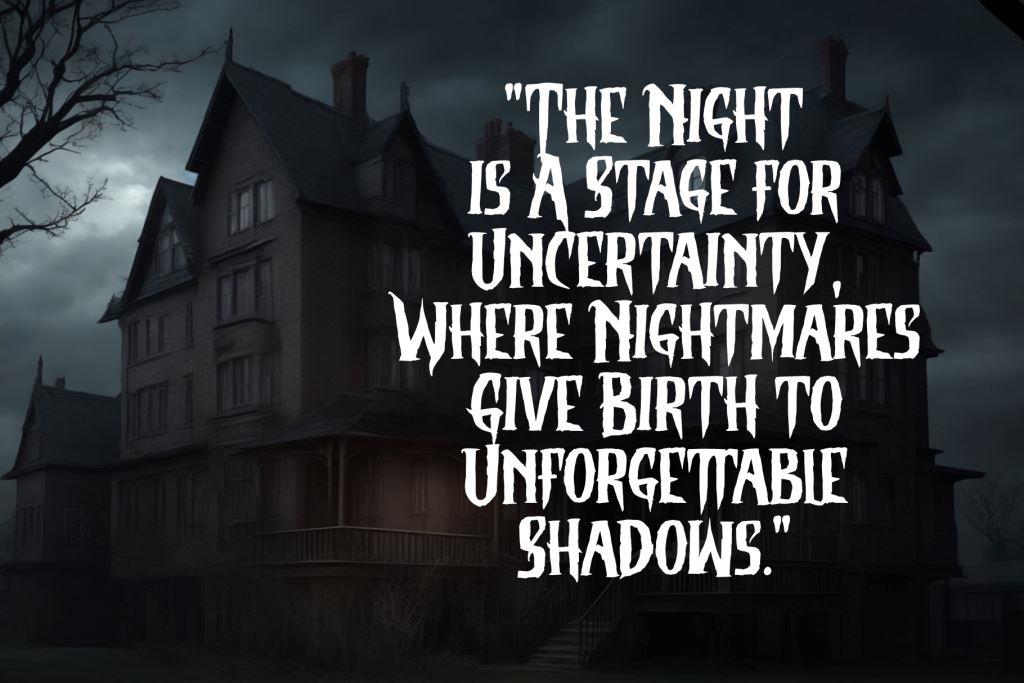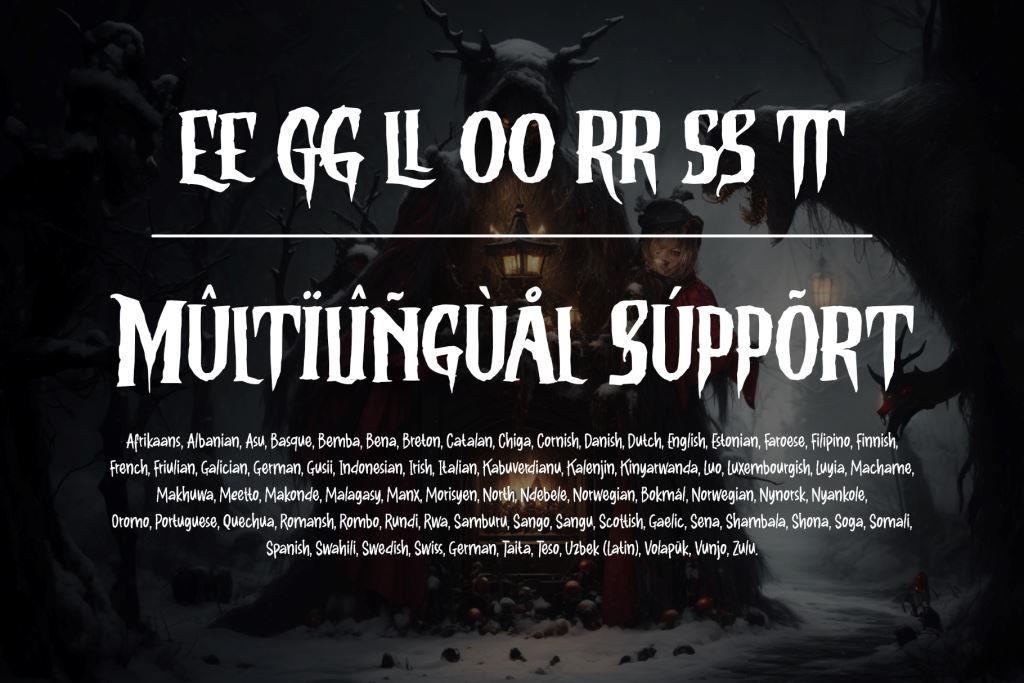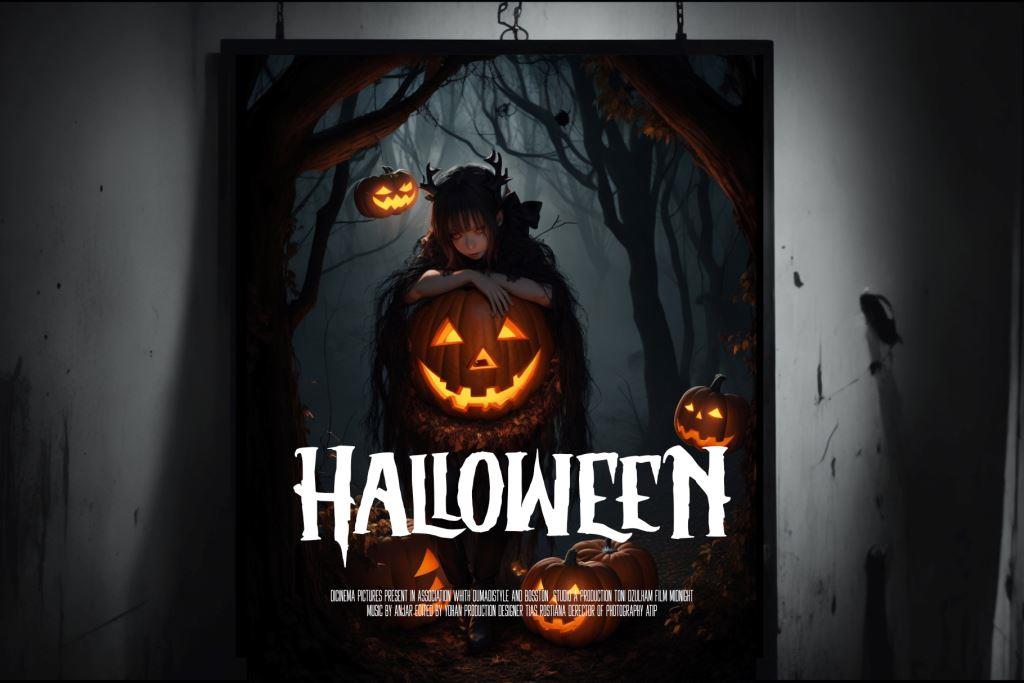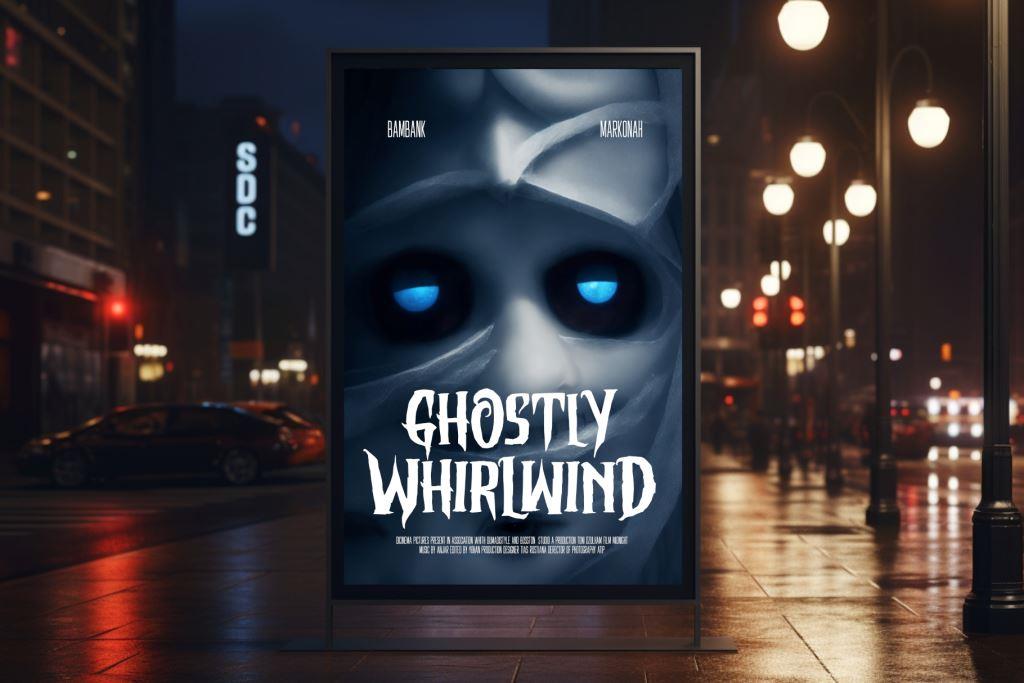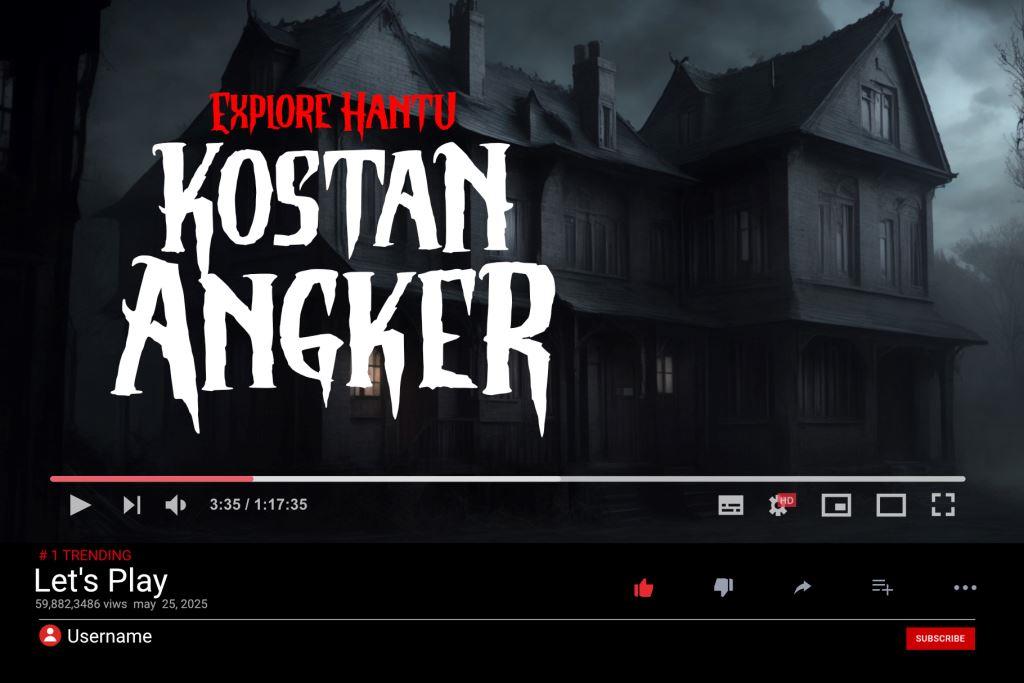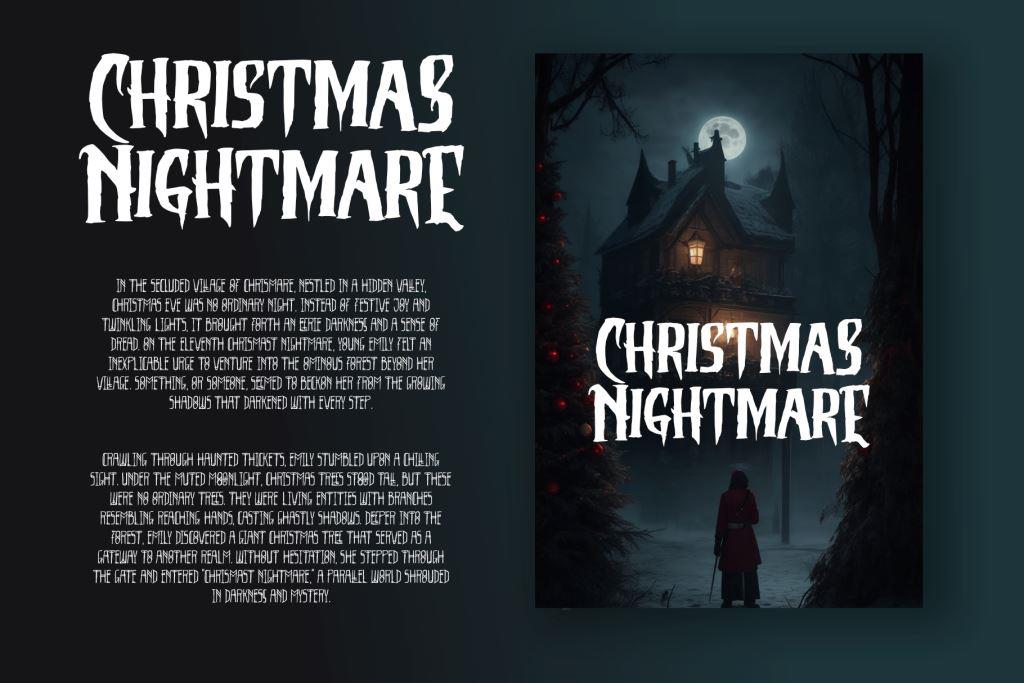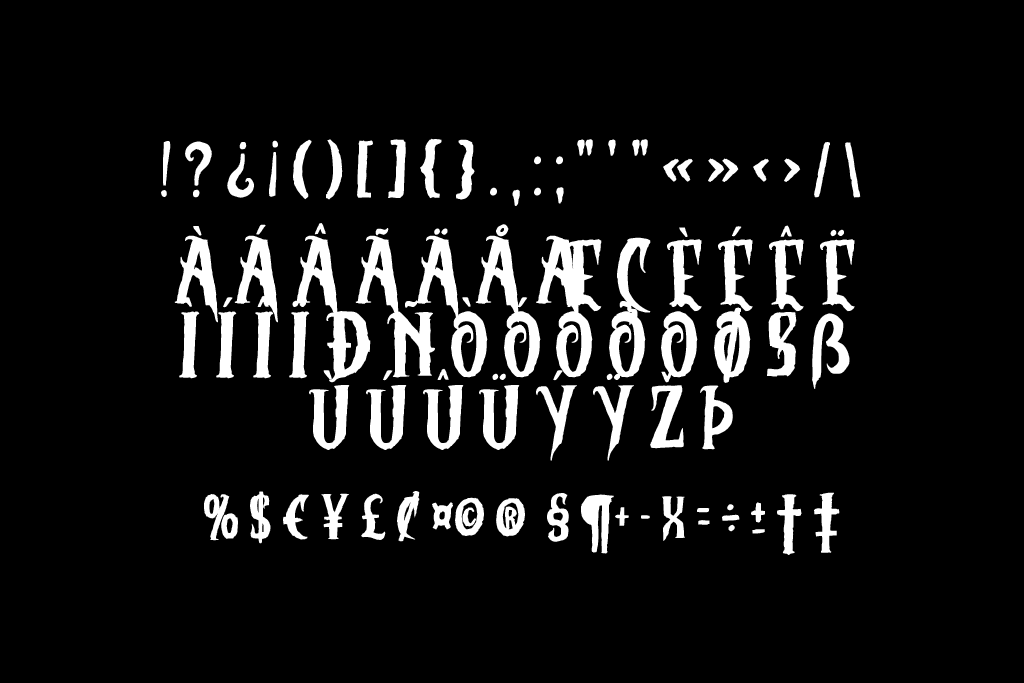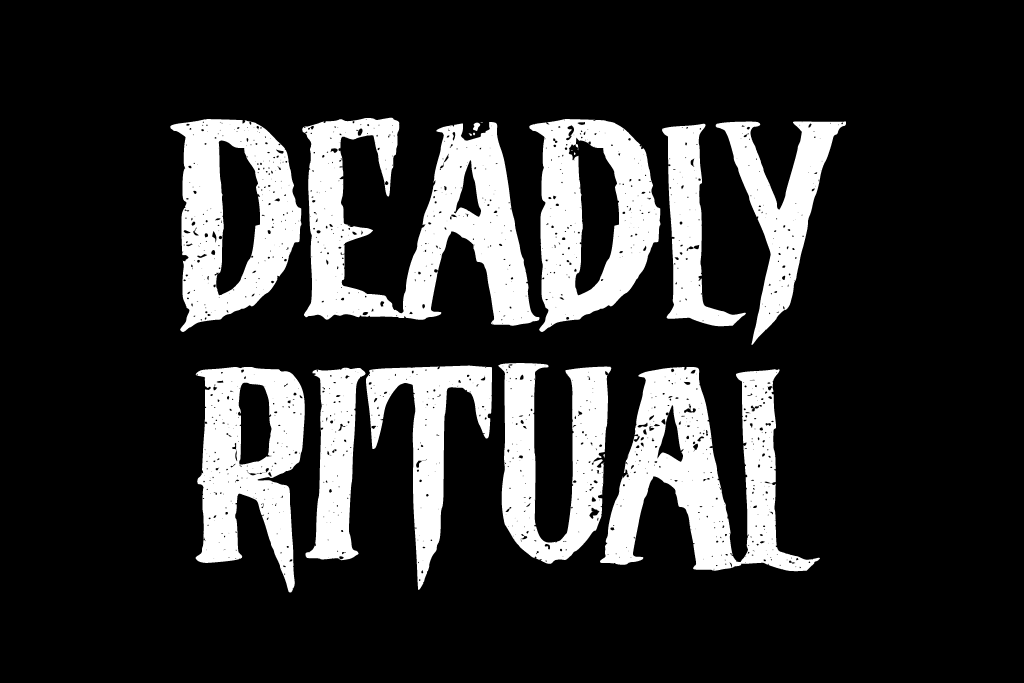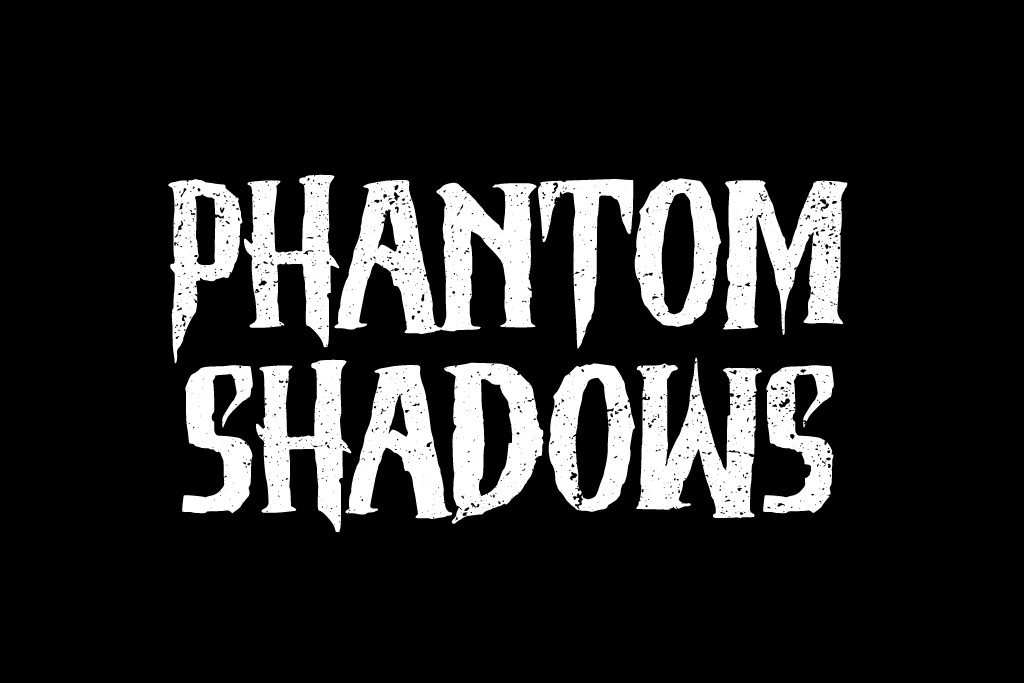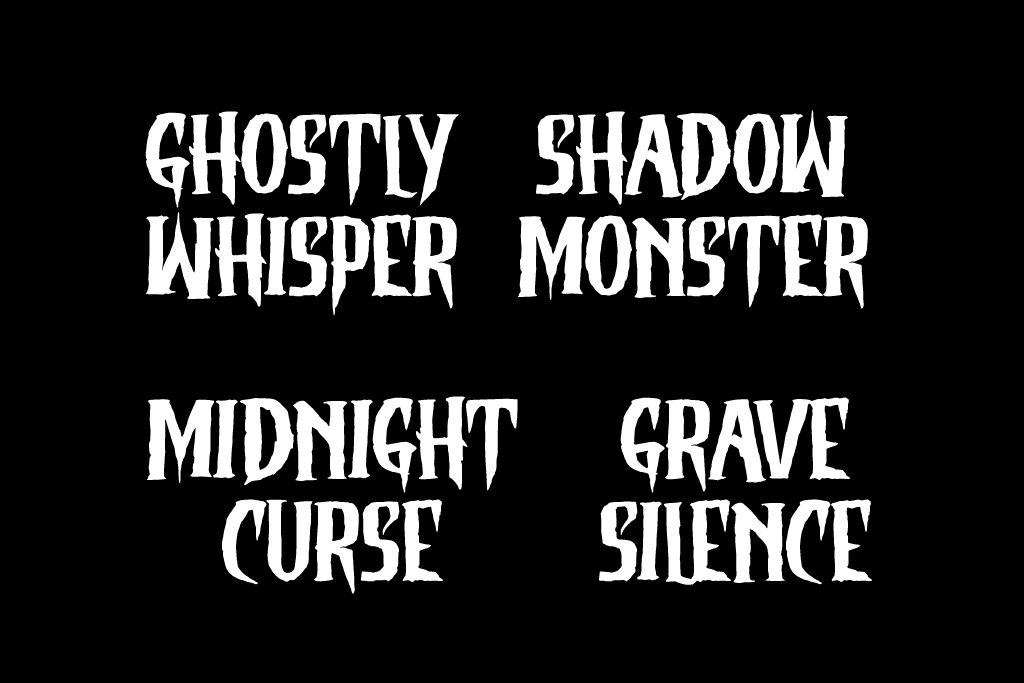
Christmare Font is a typeface crafted to evoke fear with its design that encapsulates the horror ambiance of Chrismast Nightmare night. Sharp lines and dark strokes define each letter, emitting a mysterious aura perfectly suited to the chilling theme. The creeping and isolated letter forms convey the impression that each character harbors a dark secret.
Designed with graphic designers in mind, Christmare Font is particularly tailored for the horror genre, catering to a niche audience creating spine-chilling designs such as horror movie posters, eerie YouTube thumbnails, and other graphic elements. Whether you’re working on a terrifying film title or designing elements for a haunted atmosphere, this font brings an added layer of suspense and darkness to your projects, making it an ideal choice for those seeking to instill a sense of horror and mystery in their visual creations.
+ Ligature
+ Multilingual Accent